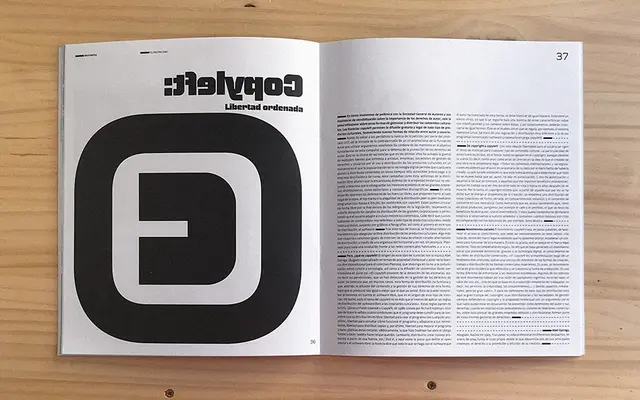
A chubby geometric display typeface originally designed for the magazine Suite, available in two heavy weights with slanted companions.
Originally part of a type series created for the now-defunct magazine Suite, Blak pairs a strong geometric construction with hard counterforms that suit oversized headline work. The family runs to four styles across two weights, Black and Ultra, each with a slanted variant. It is built squarely for bold, confident statements at large sizes.
A heavy geometric sans with hard counterforms, designed exclusively in Black and Ultra weights with slanted variants, intended for large-scale bold typesetting rather than text use.